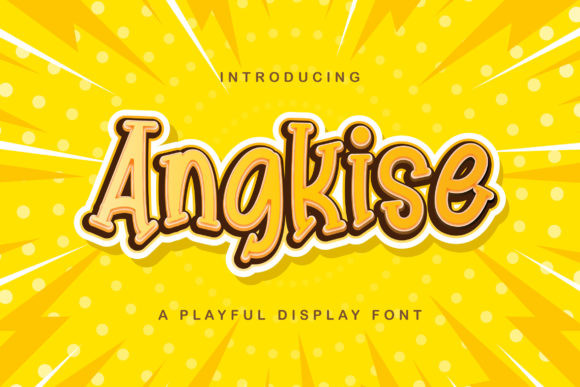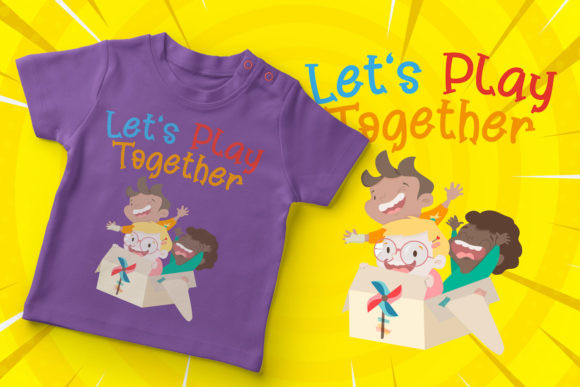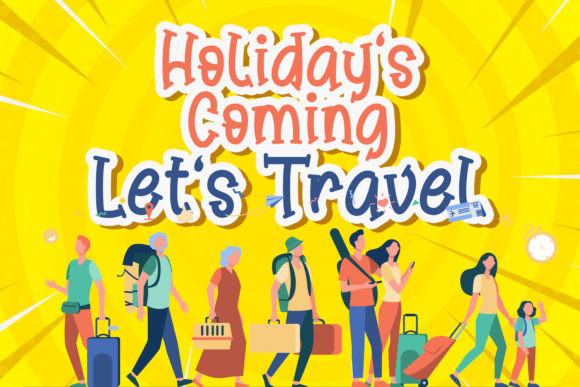
Angkise Font
Angkise is a playful and neat display font. It can be used for a variety of informal or casual designs. Have fun with this beautiful font and explore its endless variations.